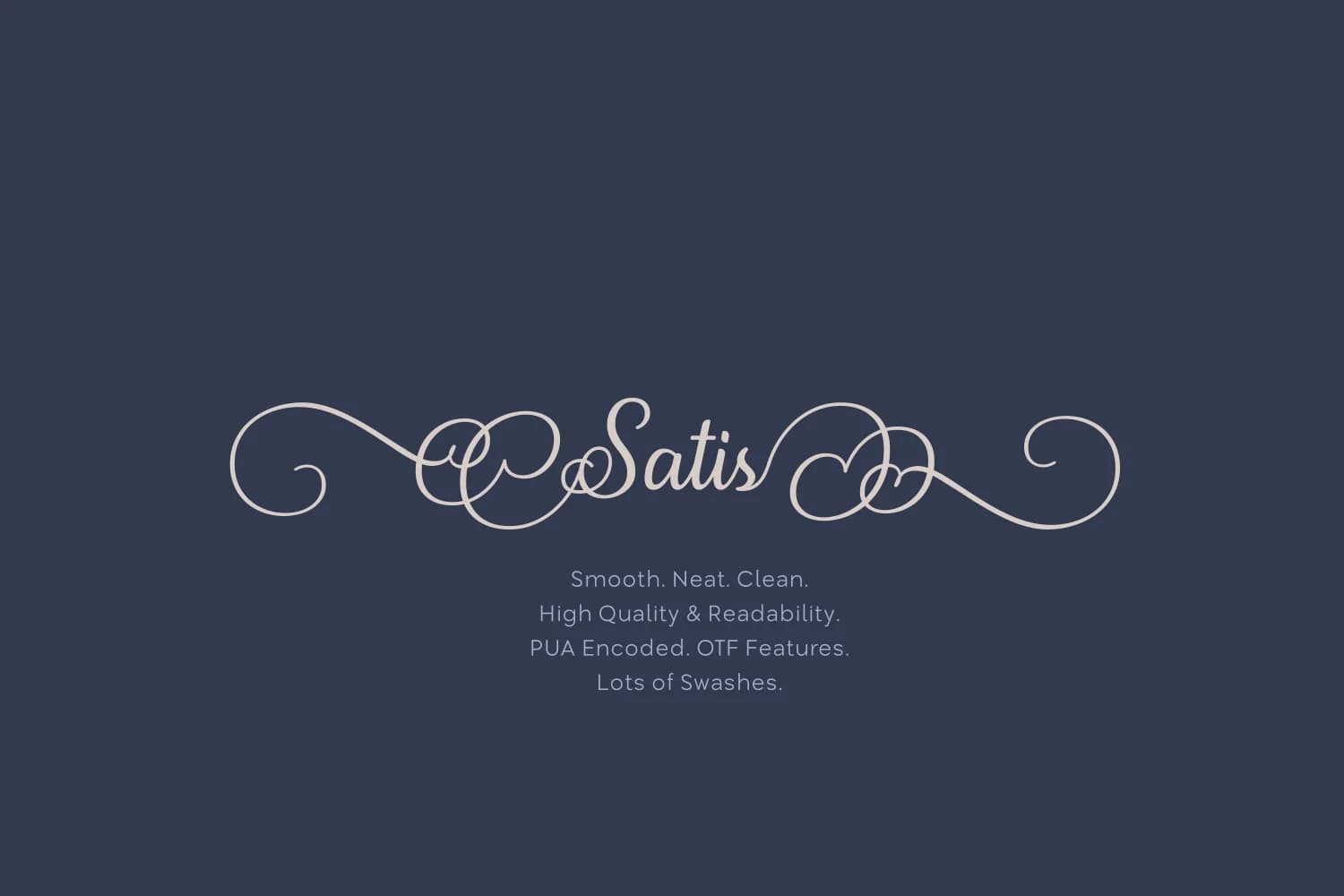
Satis Font by Creative Fabrica Fonts is an expressive script typeface characterized by ornamental swash flourishes that bring refinement to designs demanding visual sophistication and personality. With its flowing letterforms and elaborate decorative embellishments, this script excels at infusing distinctive character into typography-forward projects that require refined aesthetic presence. This font performs particularly well across several specific applications where its curvilinear style stands out. Wedding invitation suites and engagement announcements benefit substantially from its graceful curves and ornamental character, while boutique product packaging, especially for premium beauty lines, artisanal chocolates, and specialty cosmetics, leverages its upscale aesthetic. Logo design and branding for luxury sectors gain from its refined sensibility, as do decorative event posters and gallery announcements seeking visual impact. The extensive swash variations provide considerable flexibility in design execution, allowing designers to mix and match letterforms across projects without unnecessary repetition. Beyond ceremonial uses, Satis translates seamlessly across both print and digital mediums, maintaining its character in signatures, editorial headers, and decorative text applications. The font's flowing letterforms strengthen any design where script typography carries weight and intention. Find Satis Font on Creative Fabrica and add this elegant script to your design toolkit.
- Elegant, Flowing, Satis
Satis Font is a script font that shines as a display or heading face. Pair it with a clean sans-serif or serif font for body text β the contrast creates a clear hierarchy while the two styles stay balanced and easy to read.